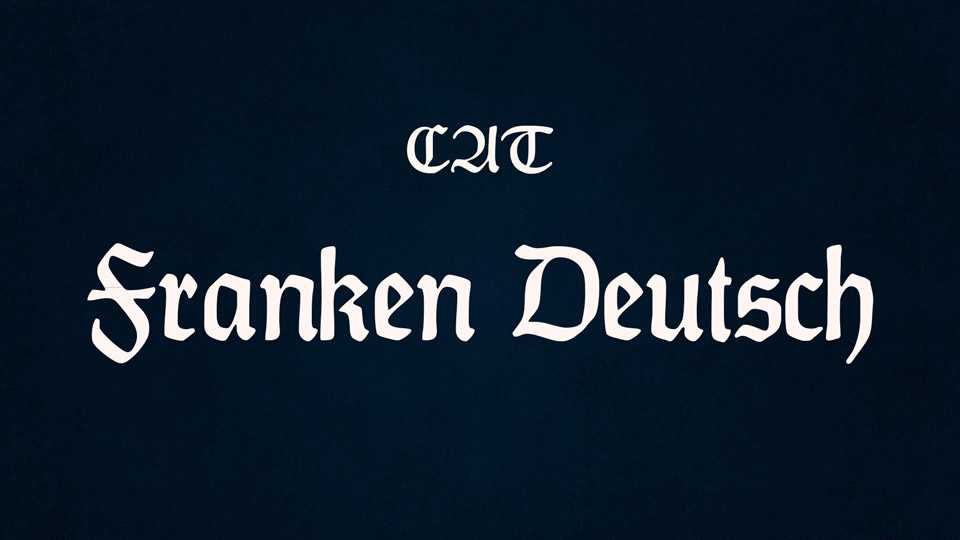
Download Franken Deutsch font, a blackletter typeface based on the 1939 design, thus one of the fairly last Fraktur typefaces published in Germany, was designed by Alfons Schneider.